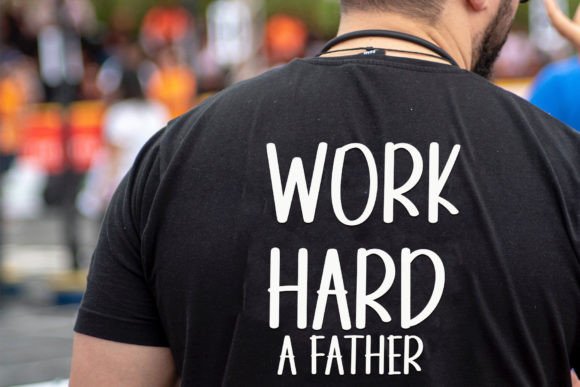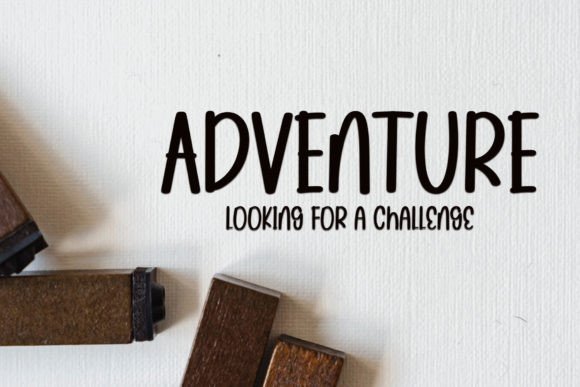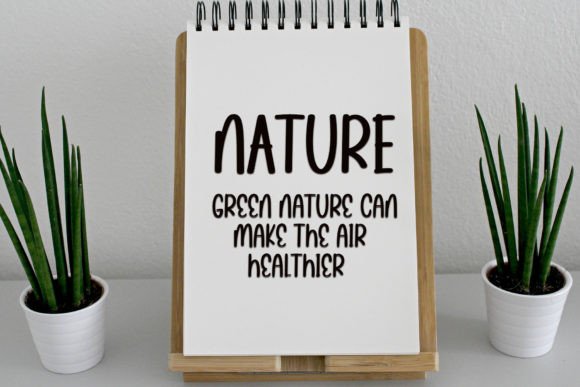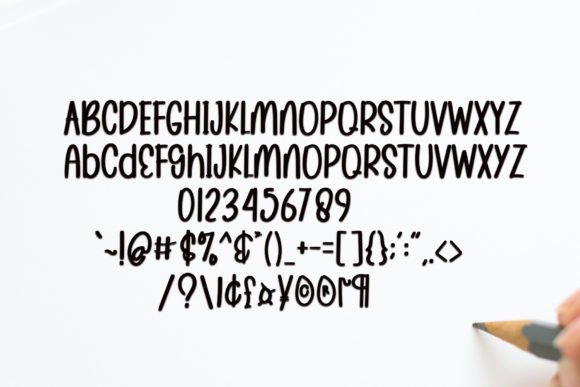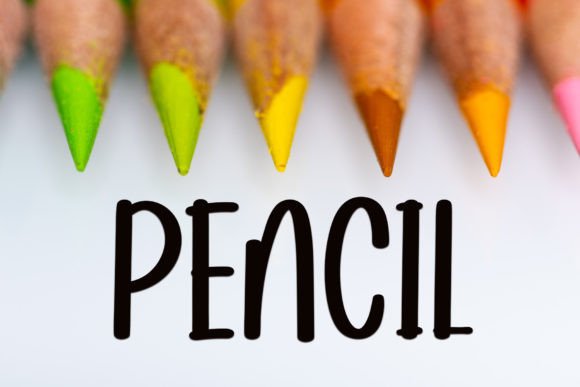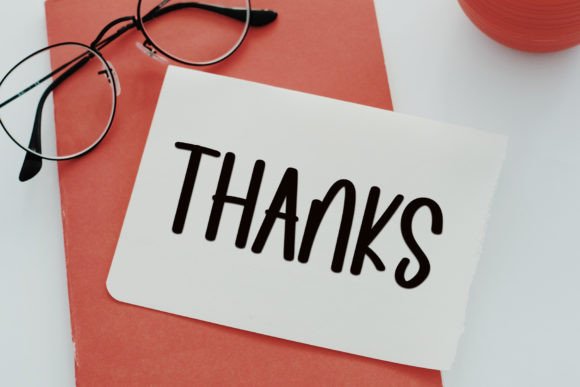
Bulky Font: Elevate Your Designs with a Cool, Simple, and Playful Handwritten Style
Are you tired of using the same old fonts in your designs? Look no further than Bulky Font, a fresh and exciting handwritten font that’s sure to take your creative projects to the next level. With its cool, simple, and playful style, Bulky is incredibly versatile and can be used in a wide range of designs, from modern and trendy to vintage and whimsical.
The Characteristics of Bulky Font
Bulky Font is a handwritten font that’s characterized by its bold, yet elegant lines. Its unique and quirky style makes it perfect for adding a touch of personality to any design. The font is incredibly easy to read, making it suitable for use in a variety of applications, from digital media to print materials.
One of the standout features of Bulky Font is its versatility. It can be used in a wide range of designs, from:
- Branding and packaging materials
- Web design and development projects
- Print materials, such as brochures and flyers
- Stationery and greeting cards
Why Choose Bulky Font?
So, why should you choose Bulky Font for your next design project? Here are just a few reasons:
- Unique and eye-catching style: Bulky Font has a one-of-a-kind style that’s sure to grab attention and make your designs stand out.
- Incredibly versatile: Whether you’re working on a modern and trendy design or a vintage and whimsical project, Bulky Font is sure to fit right in.
- Easy to read: Despite its bold and playful style, Bulky Font is incredibly easy to read, making it suitable for use in a wide range of applications.
- Adds personality to your designs: With Bulky Font, you can add a touch of personality and whimsy to your designs, making them more engaging and memorable.
How to Use Bulky Font in Your Designs
Using Bulky Font in your designs is easy. Here are a few tips to get you started:
- Pair it with other fonts: Bulky Font pairs well with a variety of other fonts, so don’t be afraid to experiment and find the perfect combination for your design.
- Use it in headlines and titles: Bulky Font is perfect for use in headlines and titles, where its bold and playful style can really make an impact.
- Add it to your branding materials: Use Bulky Font in your branding materials, such as your logo and packaging, to add a touch of personality and whimsy.
Tips and Tricks for Getting the Most Out of Bulky Font
Here are a few tips and tricks for getting the most out of Bulky Font:
- Experiment with different colors: Bulky Font looks great in a variety of colors, so don’t be afraid to experiment and find the perfect hue for your design.
- Use it in combination with images: Bulky Font pairs well with images, so try using it in combination with photos or illustrations to add an extra layer of interest to your design.
- Play with font sizes: Bulky Font looks great in a variety of font sizes, so don’t be afraid to experiment and find the perfect size for your design.
In conclusion, Bulky Font is a cool, simple, and playful handwritten font that’s perfect for designers and crafters looking to add a touch of personality to their designs. With its unique and eye-catching style, versatility, and ease of use, Bulky Font is sure to become a favorite in your design toolkit. So why wait? Add Bulky Font to your favorite creative ideas and notice how it makes them come alive!
Bulky Font is a great addition to any design project, and we highly recommend giving it a try. Whether you’re working on a modern and trendy design or a vintage and whimsical project, Bulky Font is sure to elevate your designs to the highest levels.